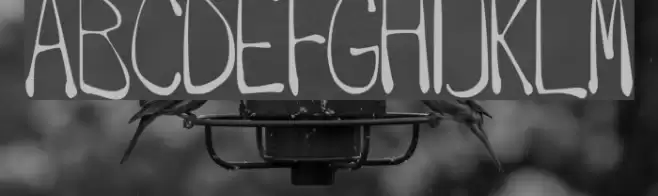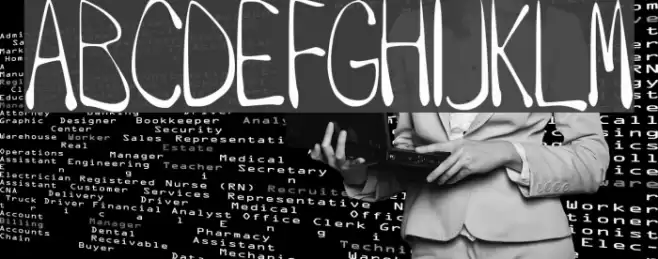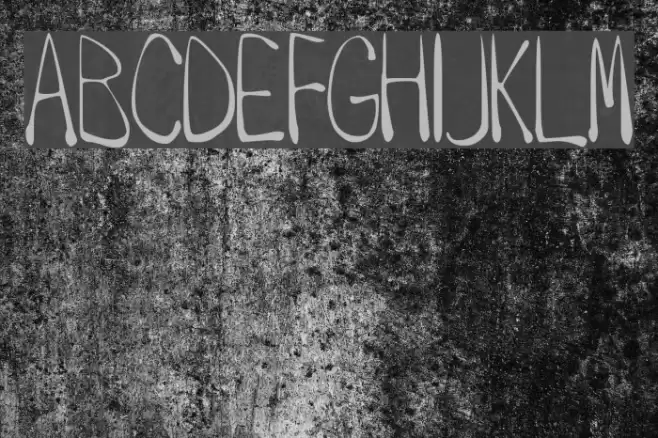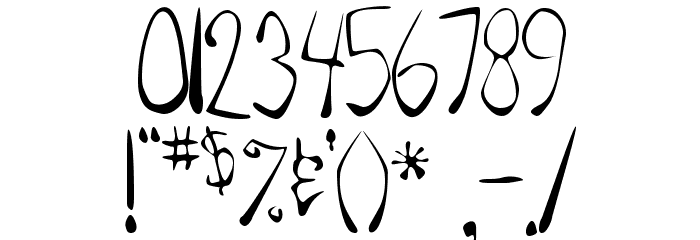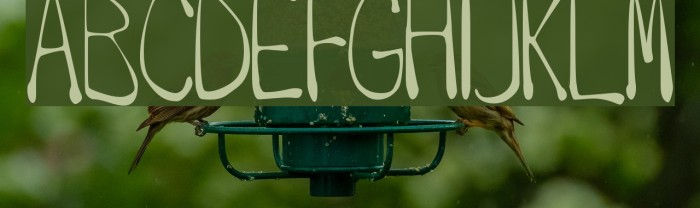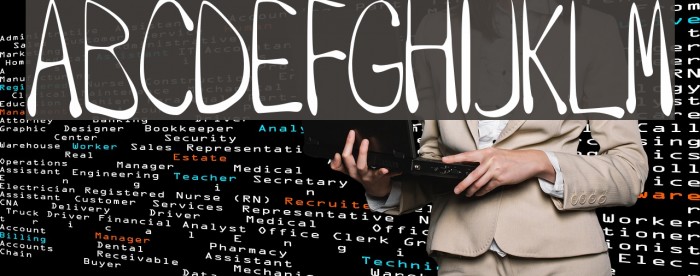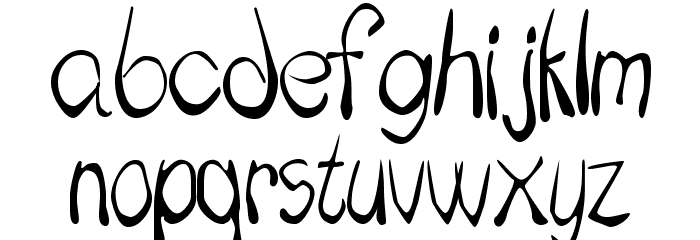
Drip Font
Drip Description
This font features a playful and artistic style, characterized by its uneven, hand-drawn appearance. The letters have a whimsical, almost liquid-like quality, with varying stroke thicknesses that create a dynamic and fluid look. The uppercase and lowercase letters maintain a consistent style, with each character exhibiting unique quirks that add to the overall charm. The numbers and special characters follow the same design principles, ensuring a cohesive visual experience. This font's distinctive style makes it stand out, offering a creative and informal vibe.
A playful, hand-drawn font with a whimsical, fluid appearance from Handwritten fonts.
- Proposed Projects: Ideal for creative projects such as children's books, playful branding, artistic posters, and casual invitations.